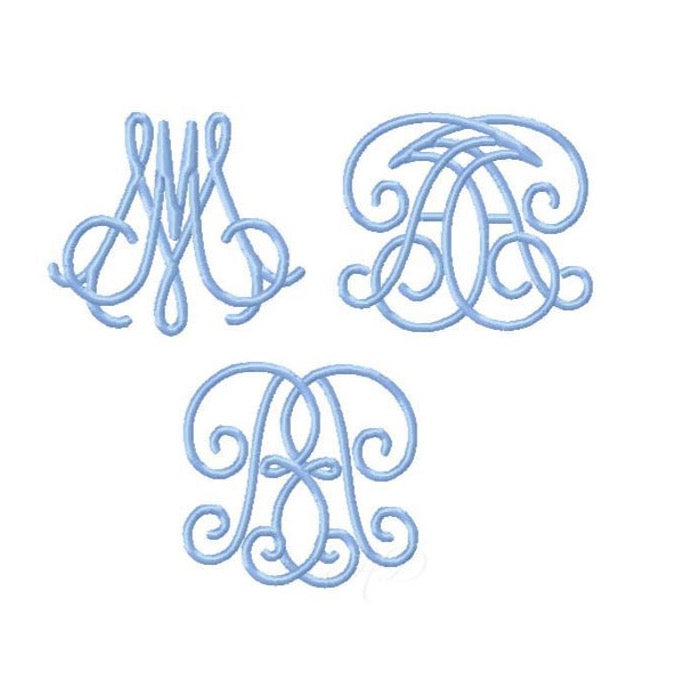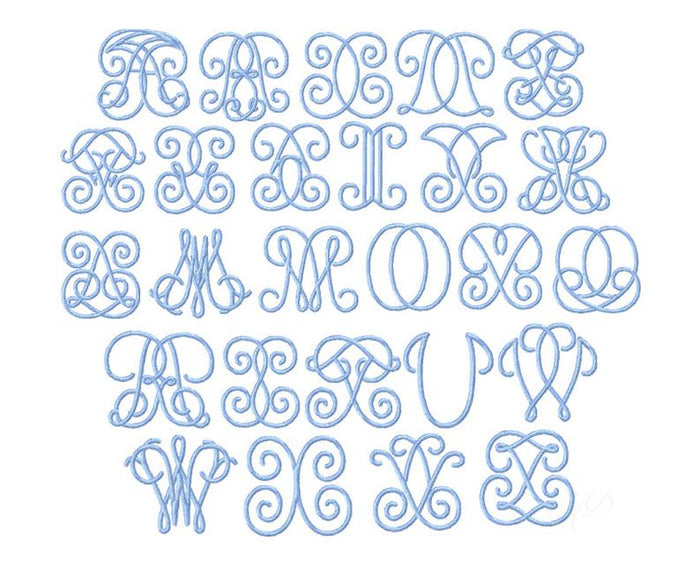
Oopsie Daisy Embroidery Font Package 4x4
Unleash your creativity with the Oopsie Daisy Embroidery Font Package, a Herrington Design exclusive designed for crafters who desire unique and whimsical monograms. This package includes four sizes: 1", 1.5", 2", 3", and 4.5". With 52 uppercase letters, each in left and right variations, you can easily create stunning custom designs.
Each letter's playful style breaks traditional monogramming rules, making it a perfect choice for personal and creative projects. Please note: an embroidery editing program is required to fully utilize these fonts, allowing for seamless monogram creation.